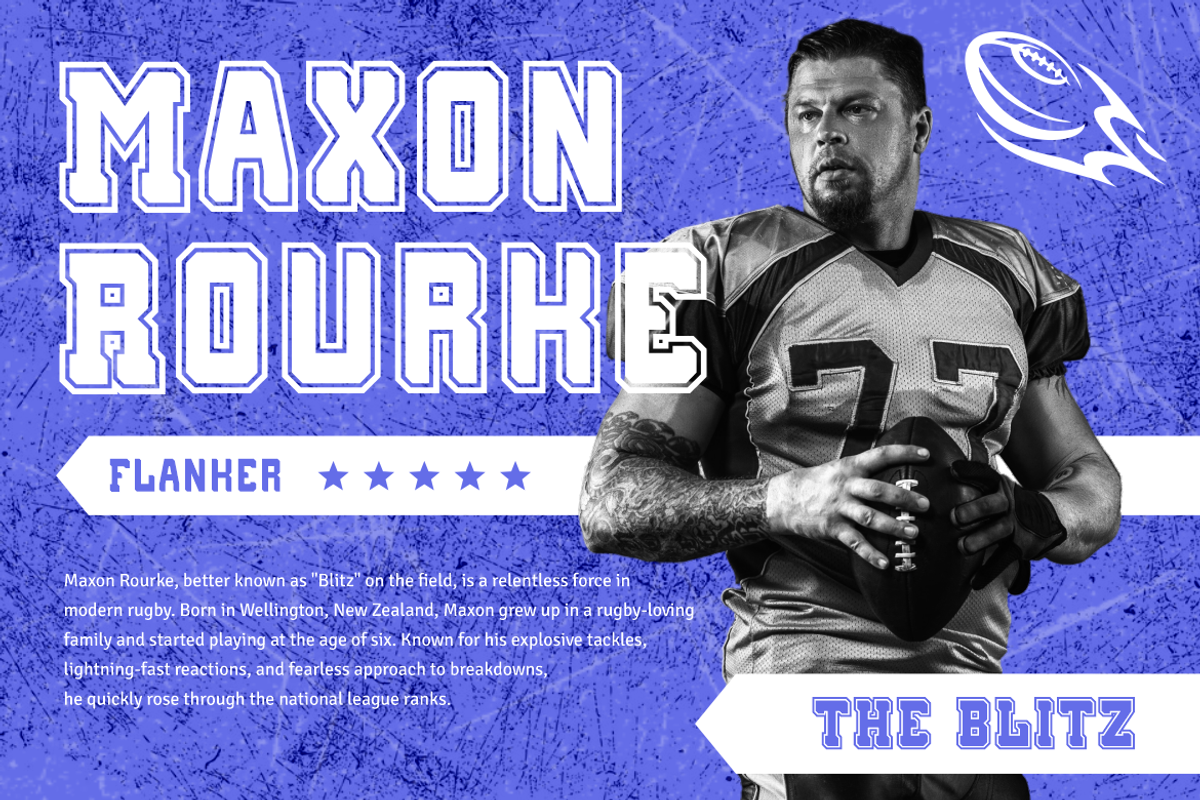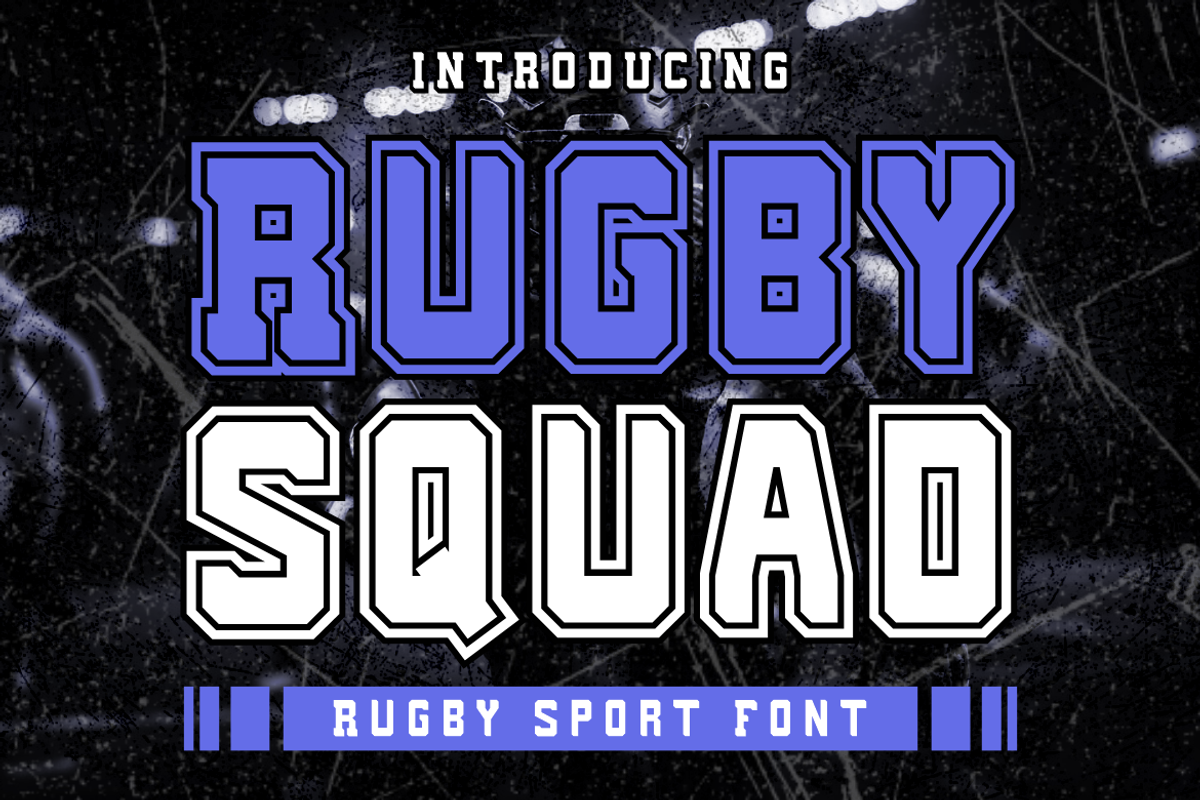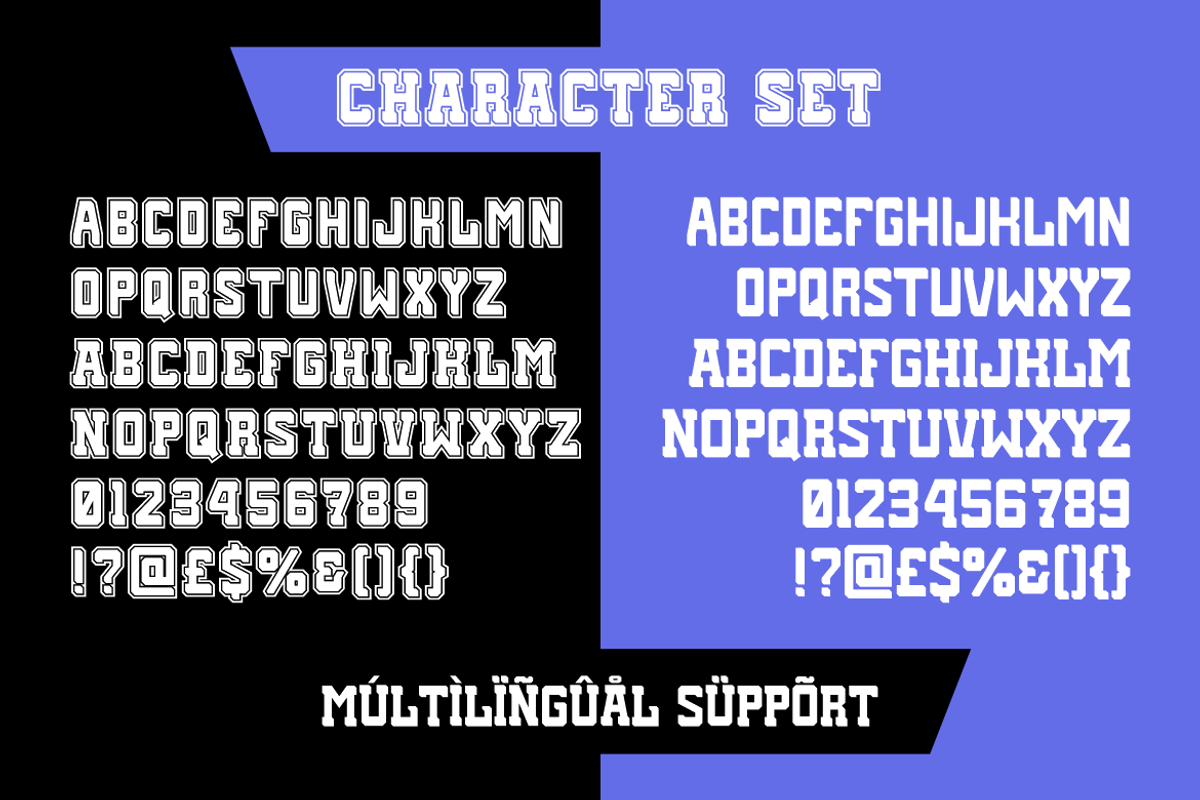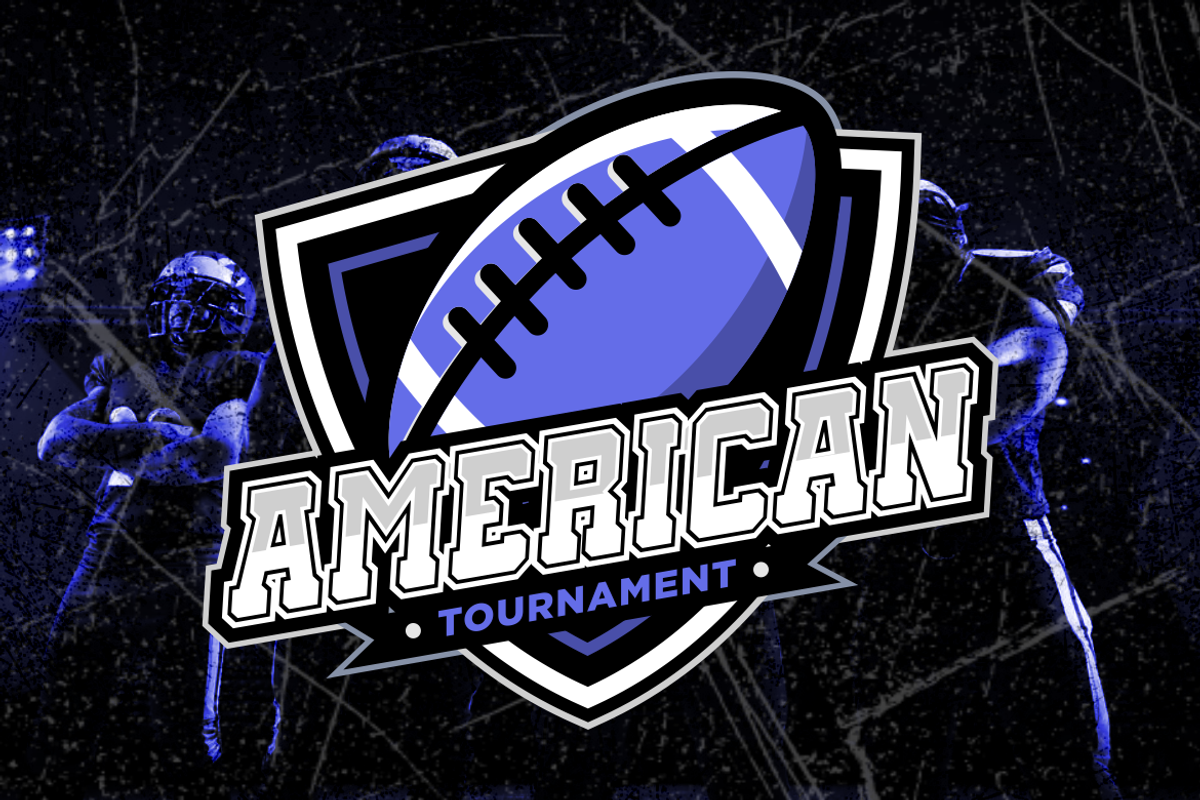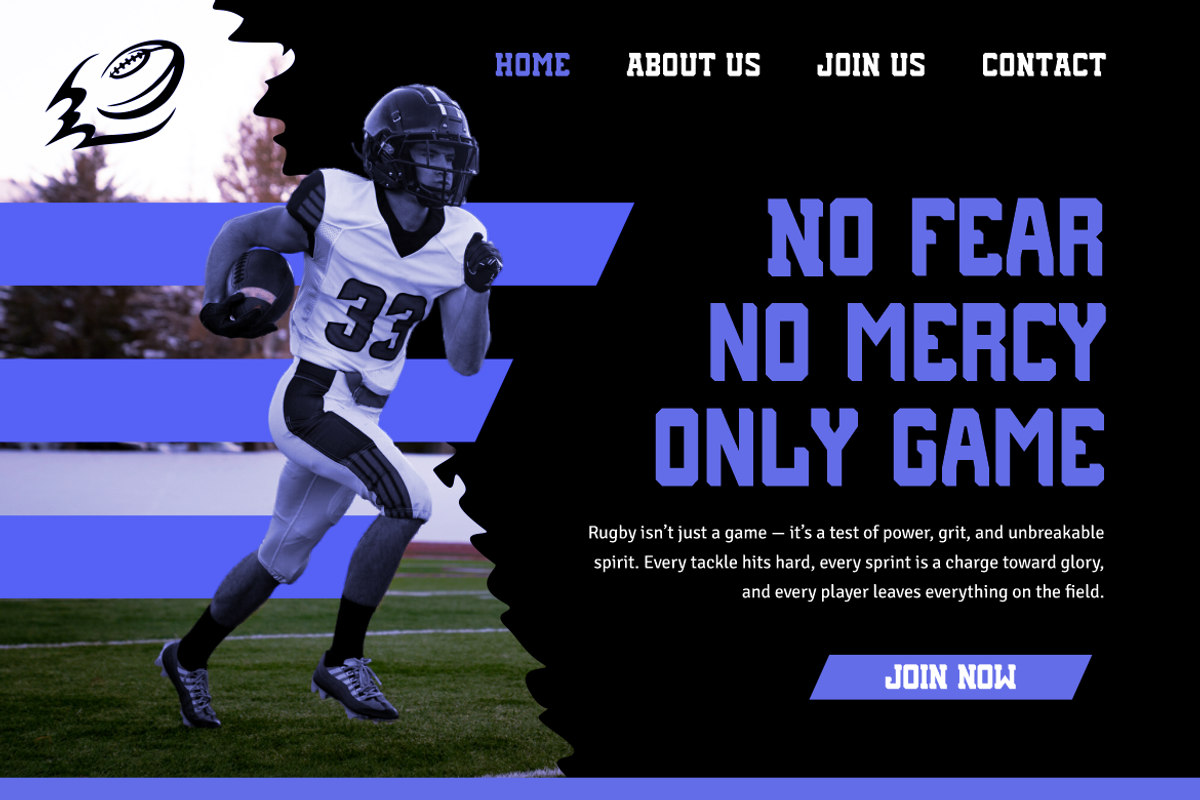
Rugby Squad - Rugby Sport Font
Rugby Squad – Rugby Sport Font brings dynamic energy and boldness to your designs, perfectly tailored for sports-themed aesthetics. This robust display typeface features distinctive block-style letters characterized by sharp angles, bold outlines, and strong, geometric shapes reminiscent of classic sports jerseys and stadium typography. Its structured yet aggressive form communicates strength, agility, and competitive spirit, making it an ideal choice for high-impact visuals that demand attention and authority.
Designed specifically with rugby and superbowl themes in mind, Rugby Squad thrives in athletic branding contexts including team logos, sports event posters, merchandise, and promotional materials. The carefully balanced layout and crisp readability ensure maximum impact, even at smaller sizes, suitable for web graphics and digital marketing campaigns. Whether you are crafting standout headlines, packaging, team apparel, or high-energy media assets, Rugby Squad ensures your message scores every time, resonating powerfully with sports fans and athletic enthusiasts alike.